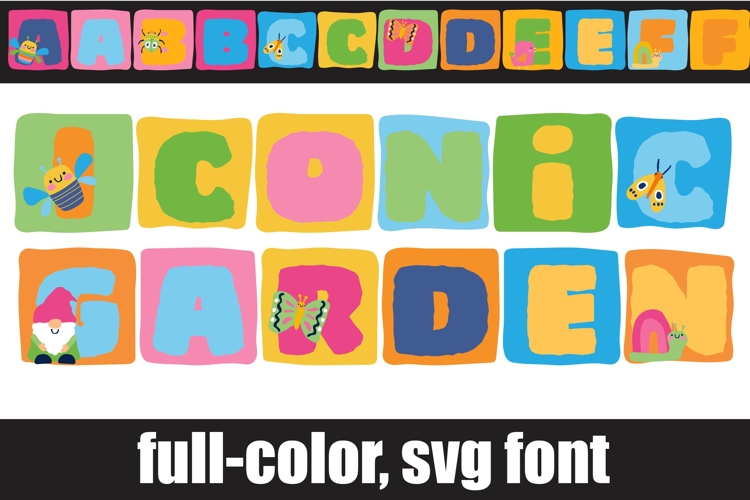
Iconic Garden Color Font
This full-color, blocky font is in springy palette with little garden and spring images throughout. There is an alt case of additional colors of each letter that you can access through your system's character map.